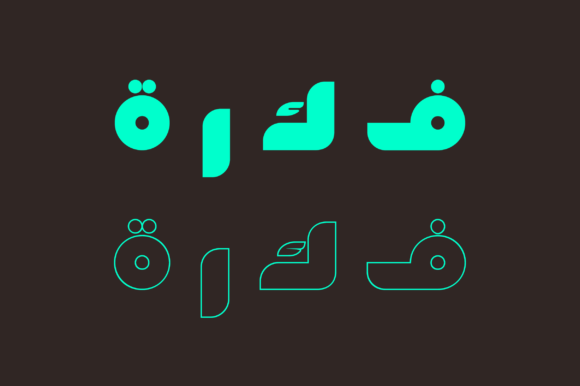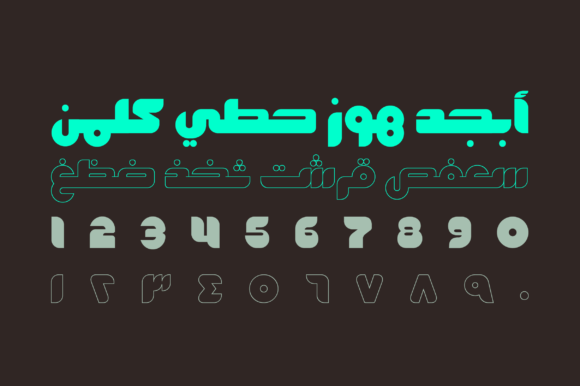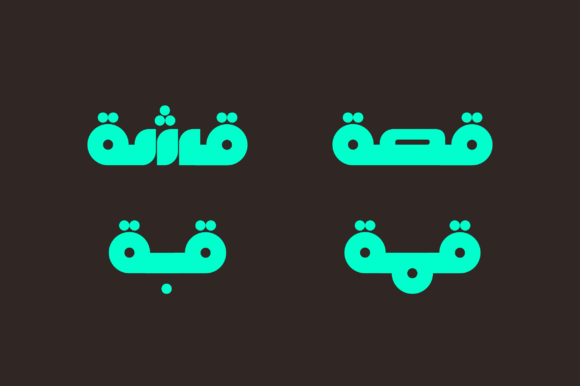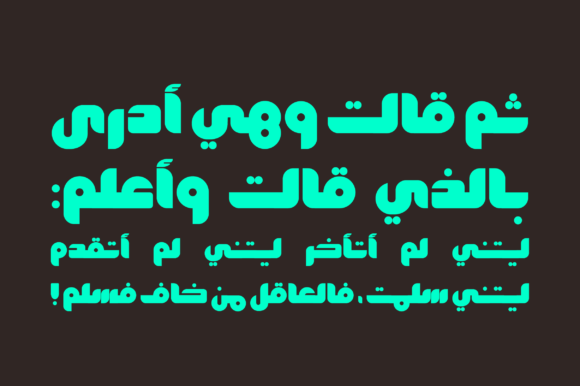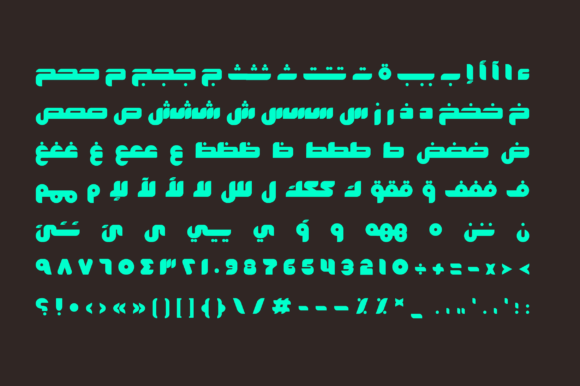
Fekrah - Arabic Font
Fekrah is the Arabic word for Idea. This is a contemporary Arabic typeface that suits visual identities and modern design projects, due to its sleek design and geometric appeal.